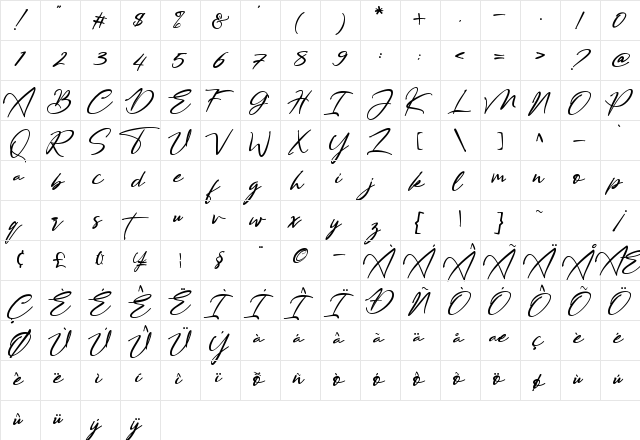
Bestowens Family Regular
| Designer | Letterara 2019 |
Design Context for Bestowens Family Typeface
Bestowens Family is a composed and adaptable typeface that performs quietly and consistently across a wide range of design contexts.